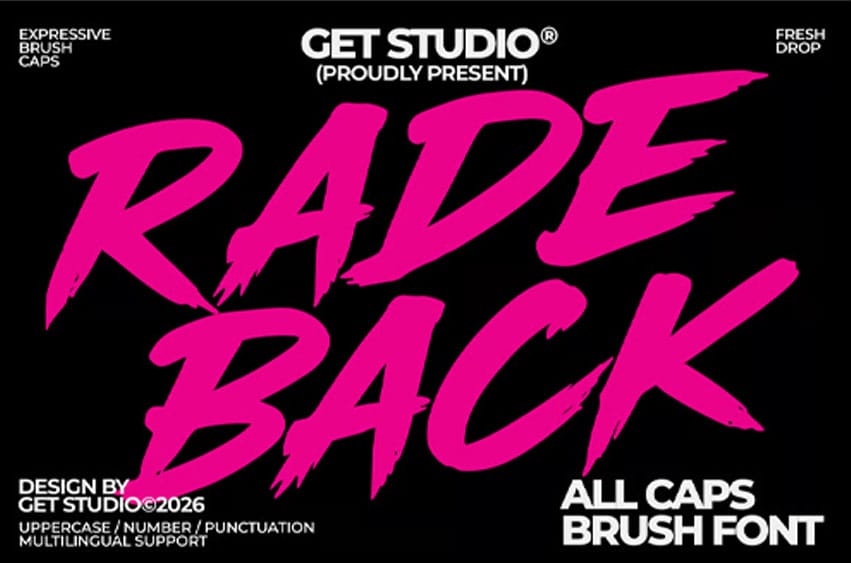
Radeback Font is a bold all-caps brush display font built to deliver strong visual impact. With its rough strokes and expressive hand-painted feel, it captures a raw, energetic style that instantly stands out in any design.
Designed for attention-grabbing headlines, Radeback brings a perfect balance between modern edge and organic brush texture—making it ideal for posters, branding, social media, merchandise, and more.
- Uppercase letters (A–Z)
- Numbers & punctuation